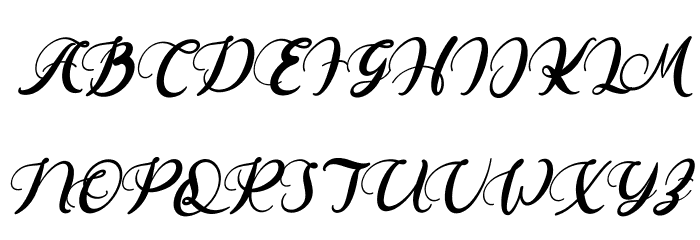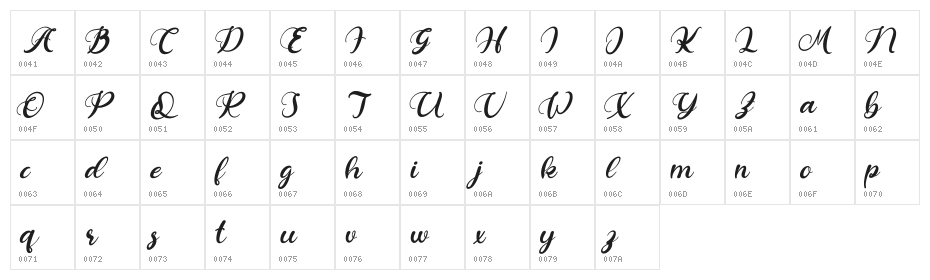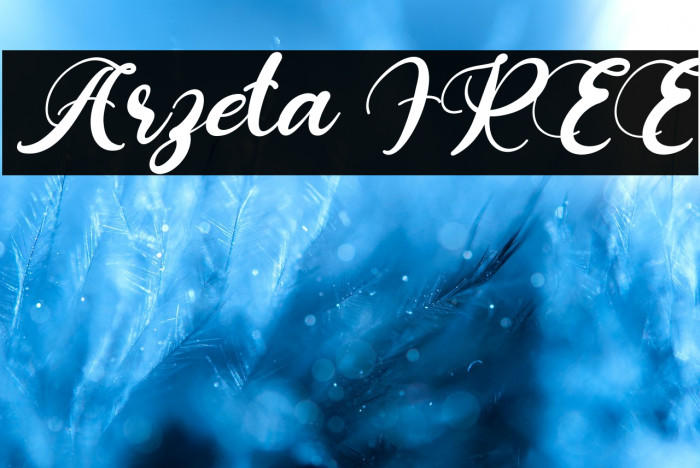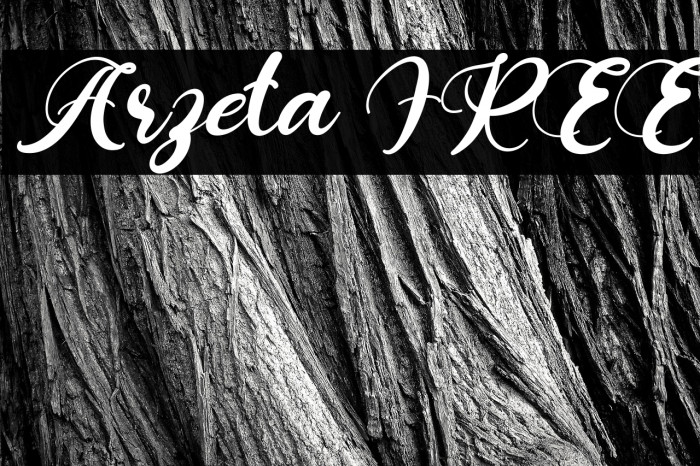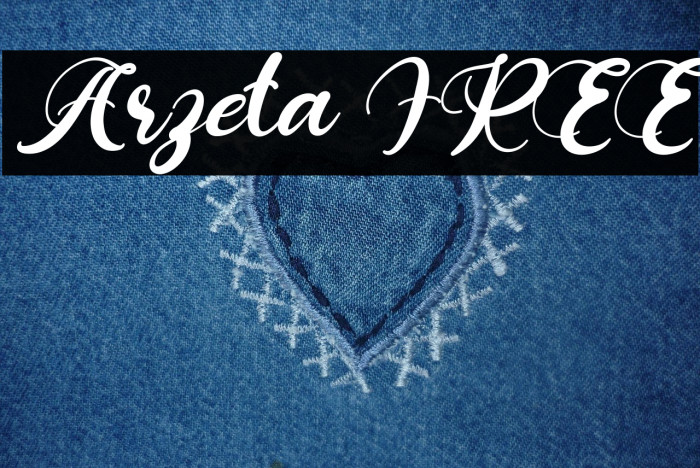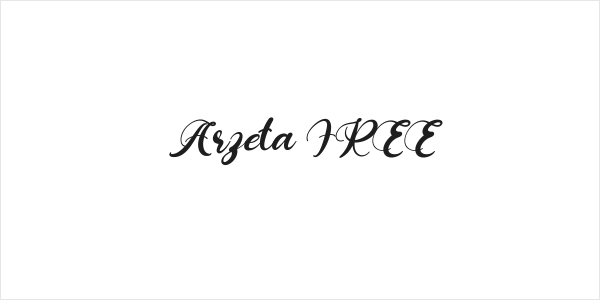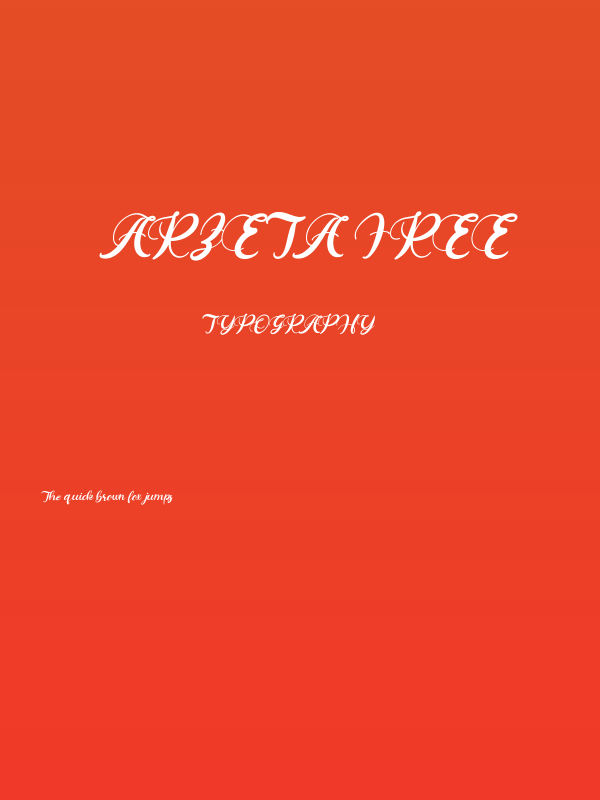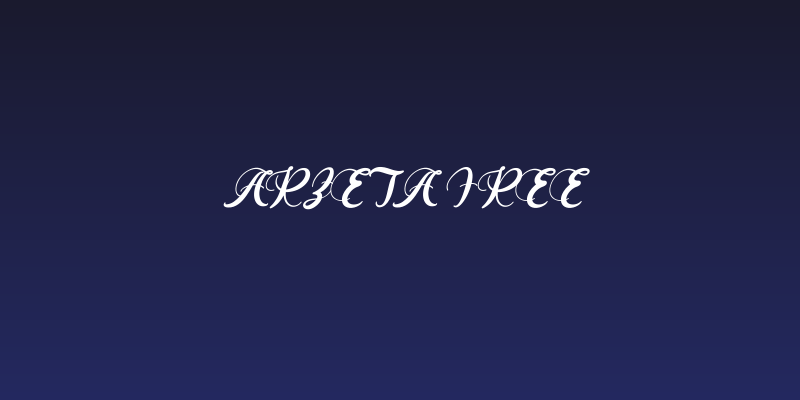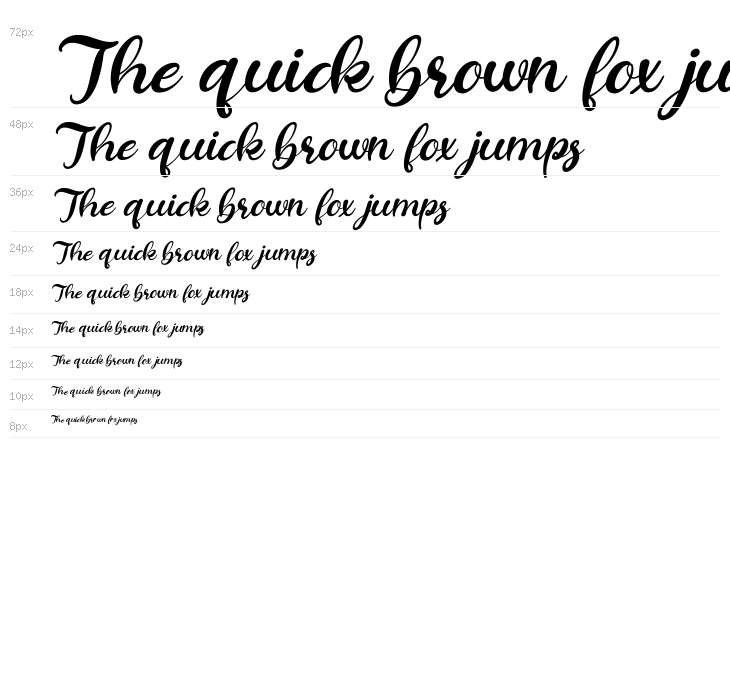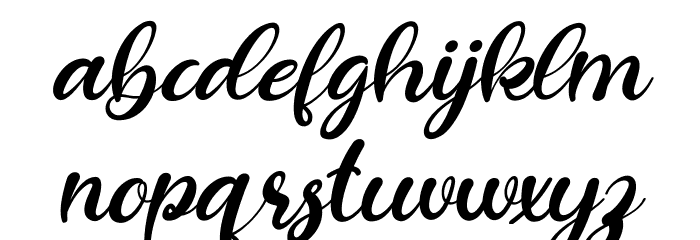
Arzeta FREE Font
Arzeta FREE Description
This font features an elegant and flowing script style, characterized by its smooth, cursive lines and graceful curves. The uppercase letters exhibit a sophisticated flair with extended strokes and loops, while the lowercase letters maintain a consistent rhythm and fluidity. The font's design is reminiscent of traditional calligraphy, offering a sense of refinement and artistic expression. The characters are well-balanced, providing a harmonious appearance that is both decorative and readable. This font is ideal for projects that require a touch of elegance and sophistication, such as invitations, branding, and decorative headings.
| Overall Style | Elegant, Decorative |
| Use Case | Headlines, Invitations, Branding |
| Proposed Projects | Ideal for wedding invitations, elegant branding, decorative headings, and artistic designs. |